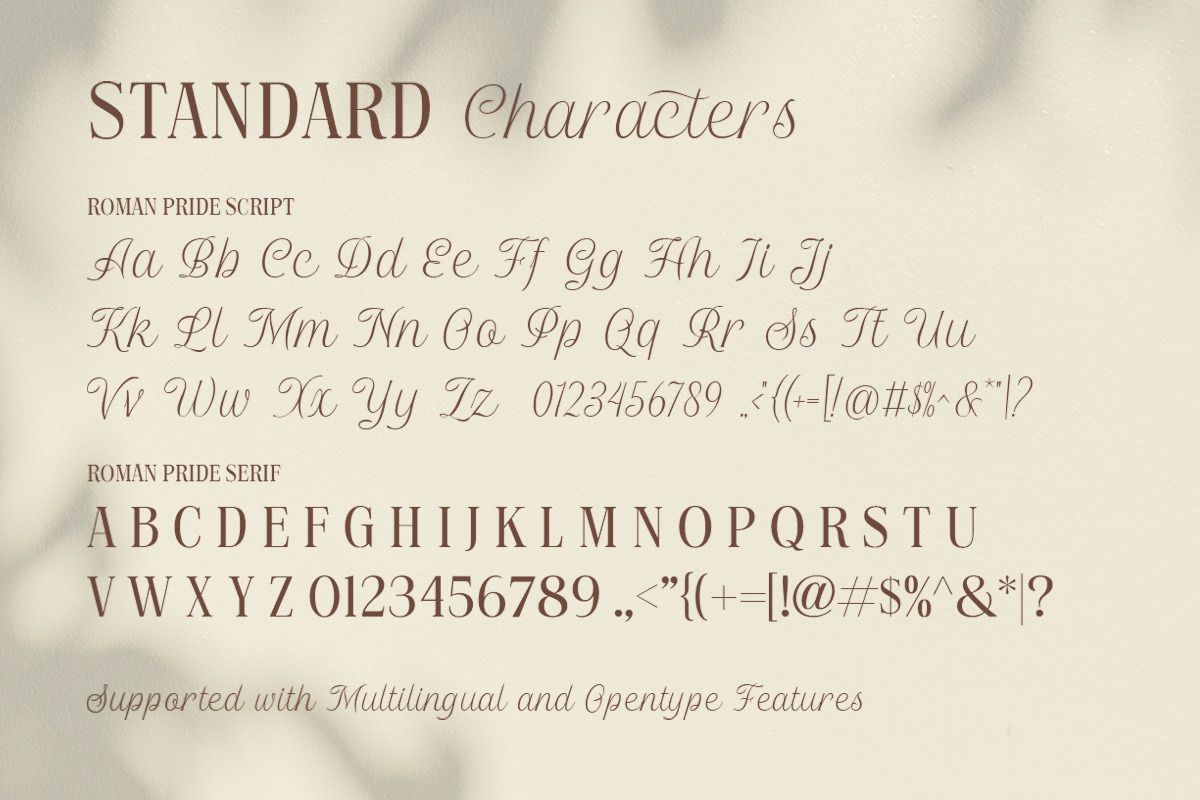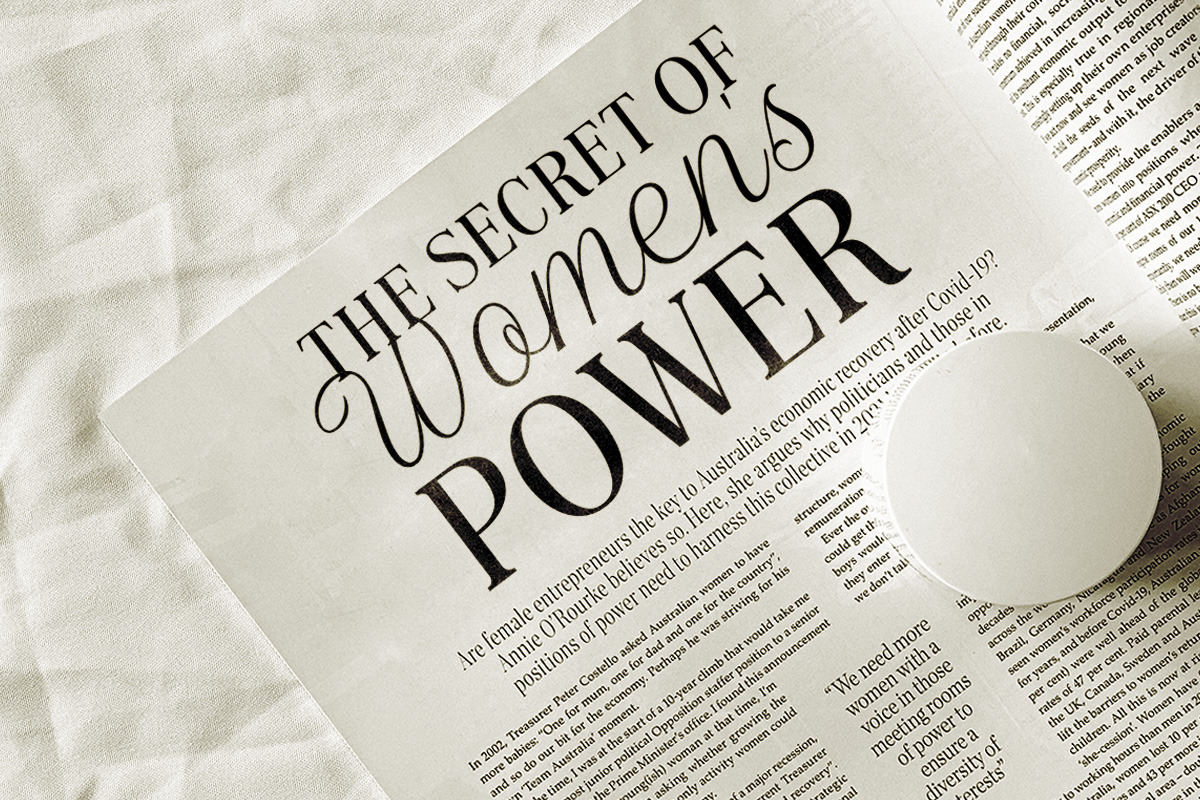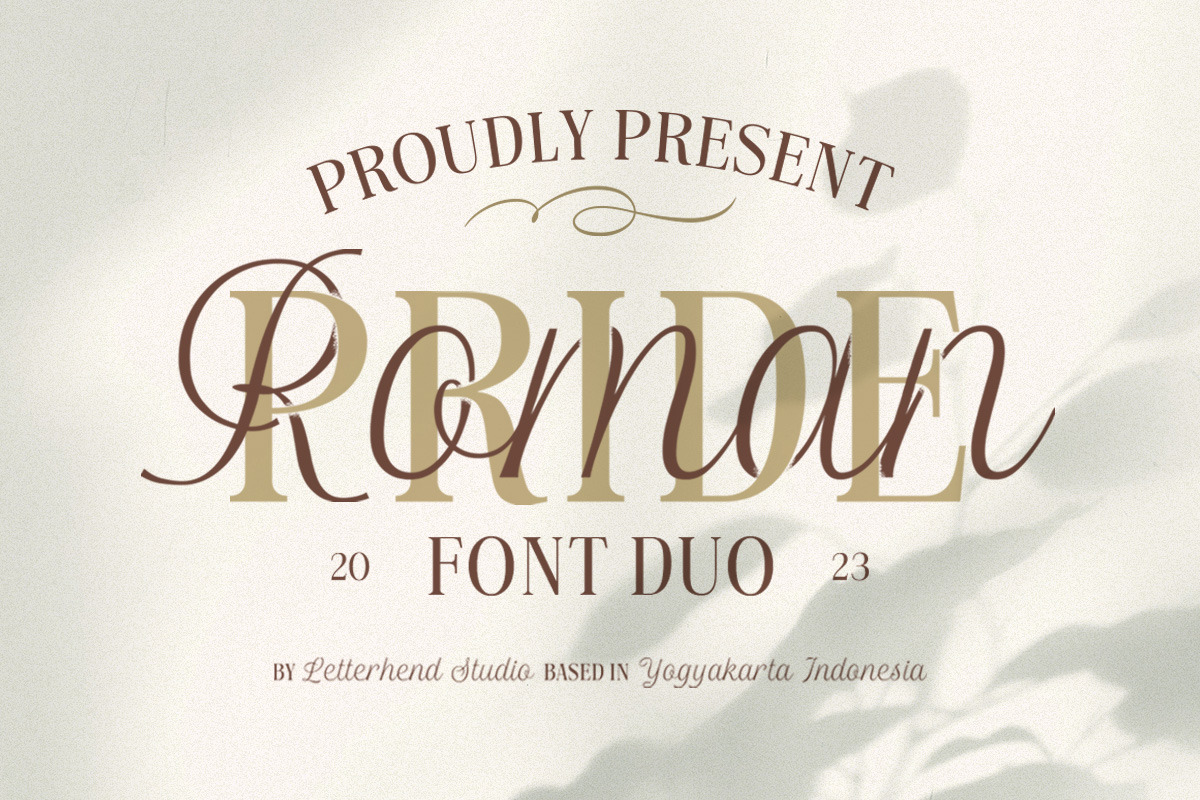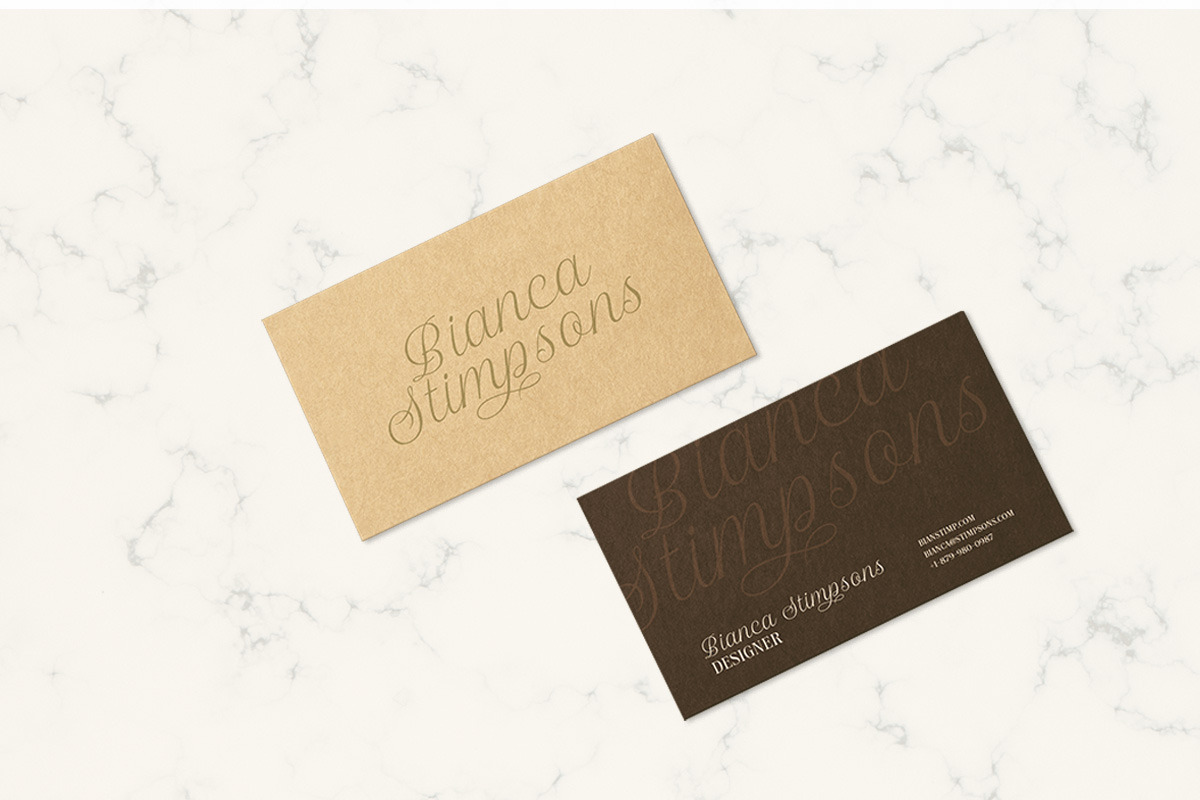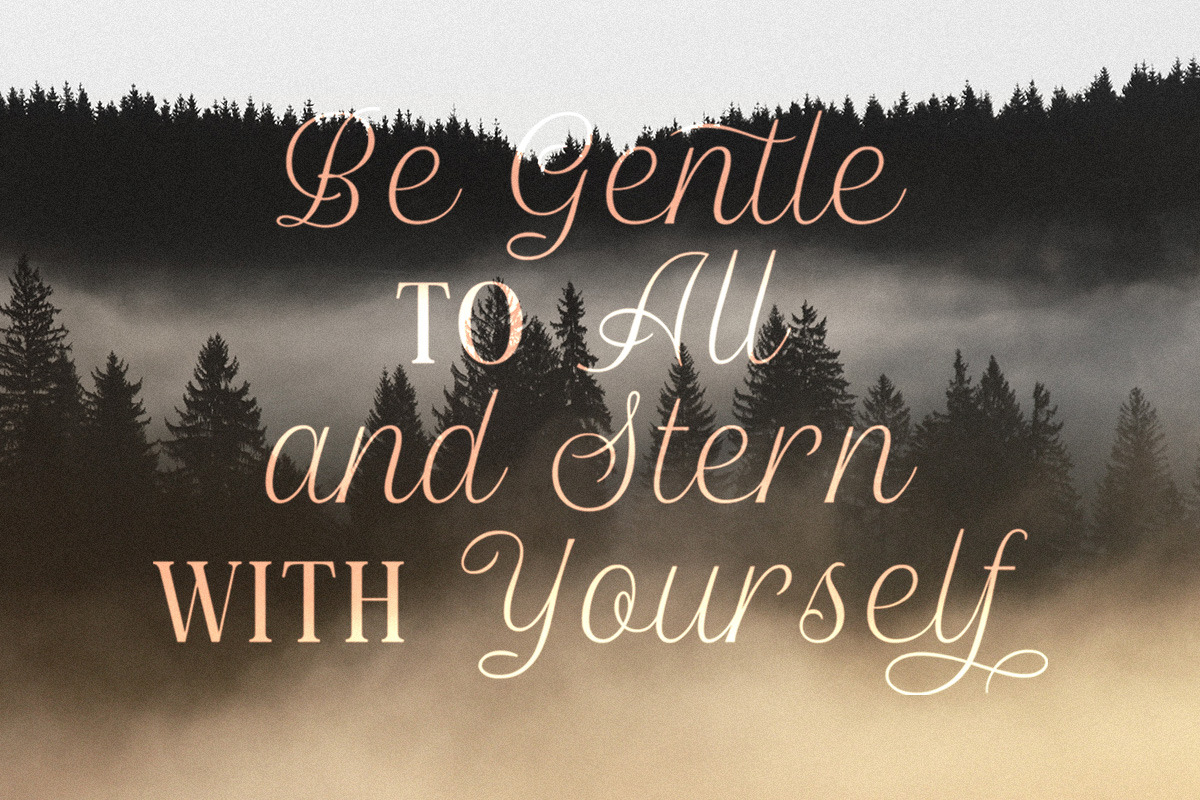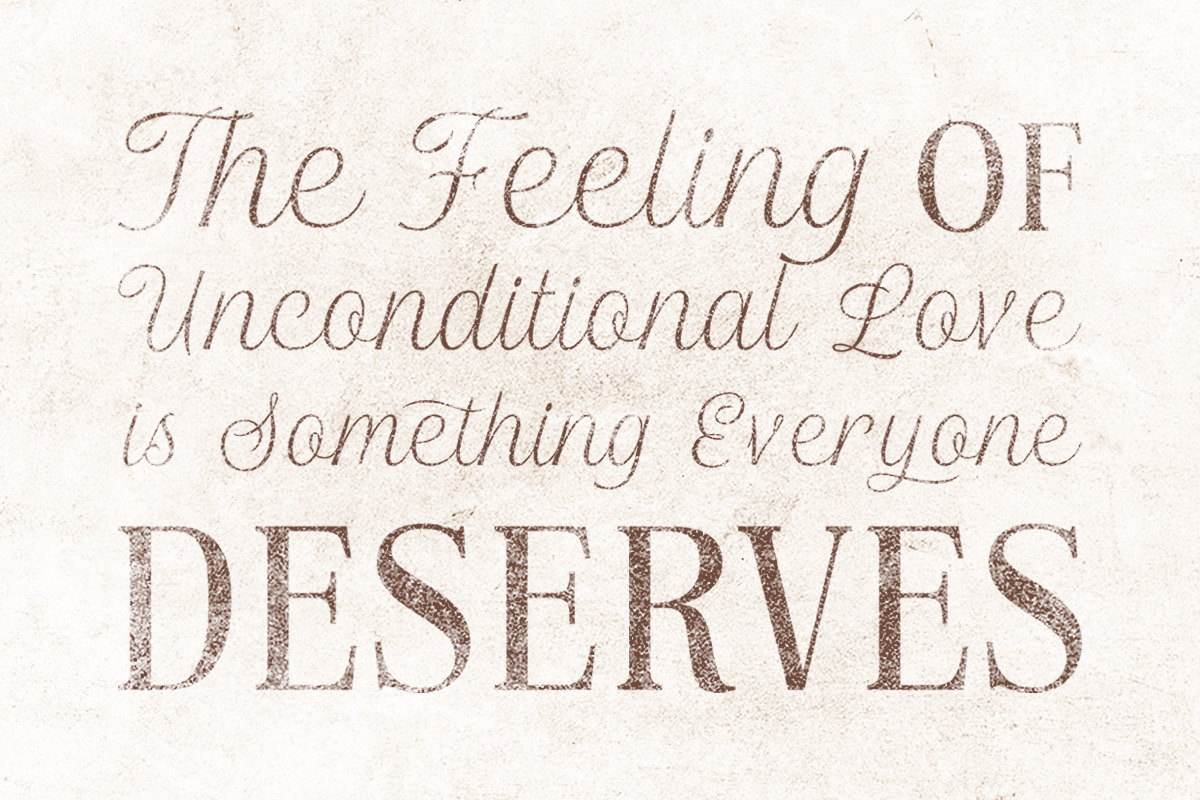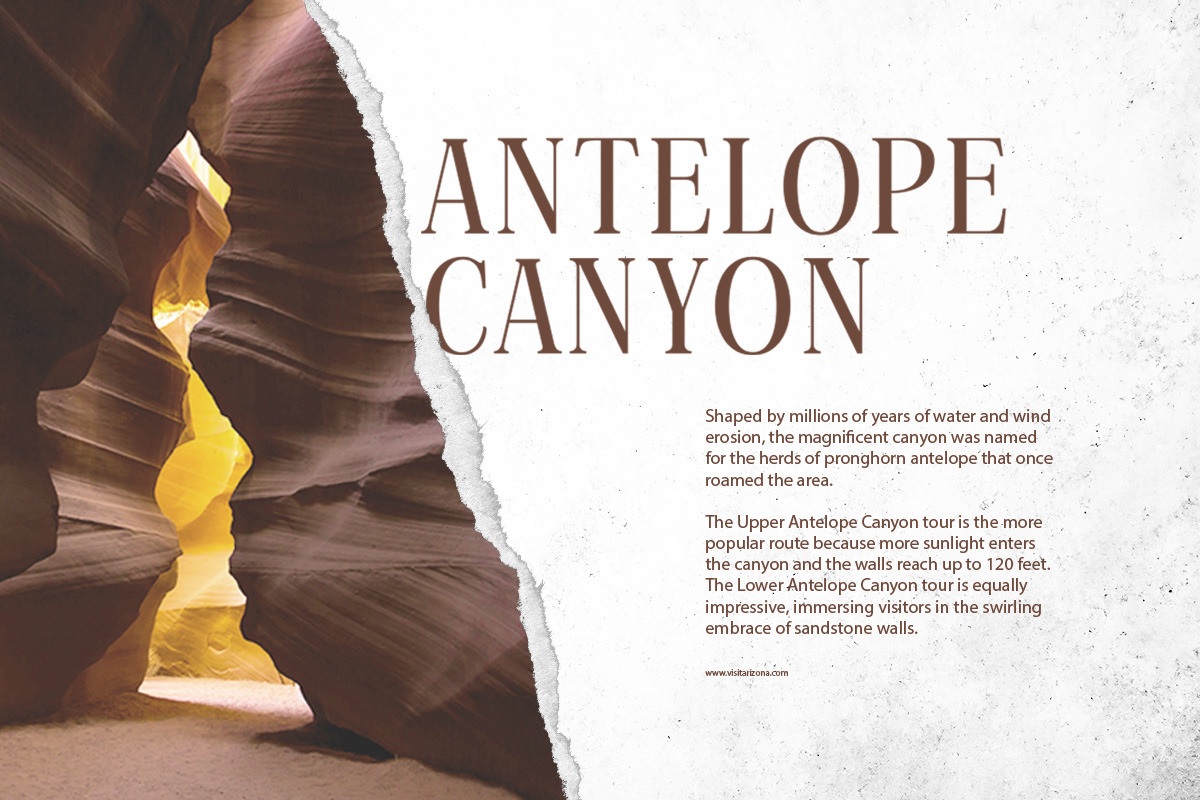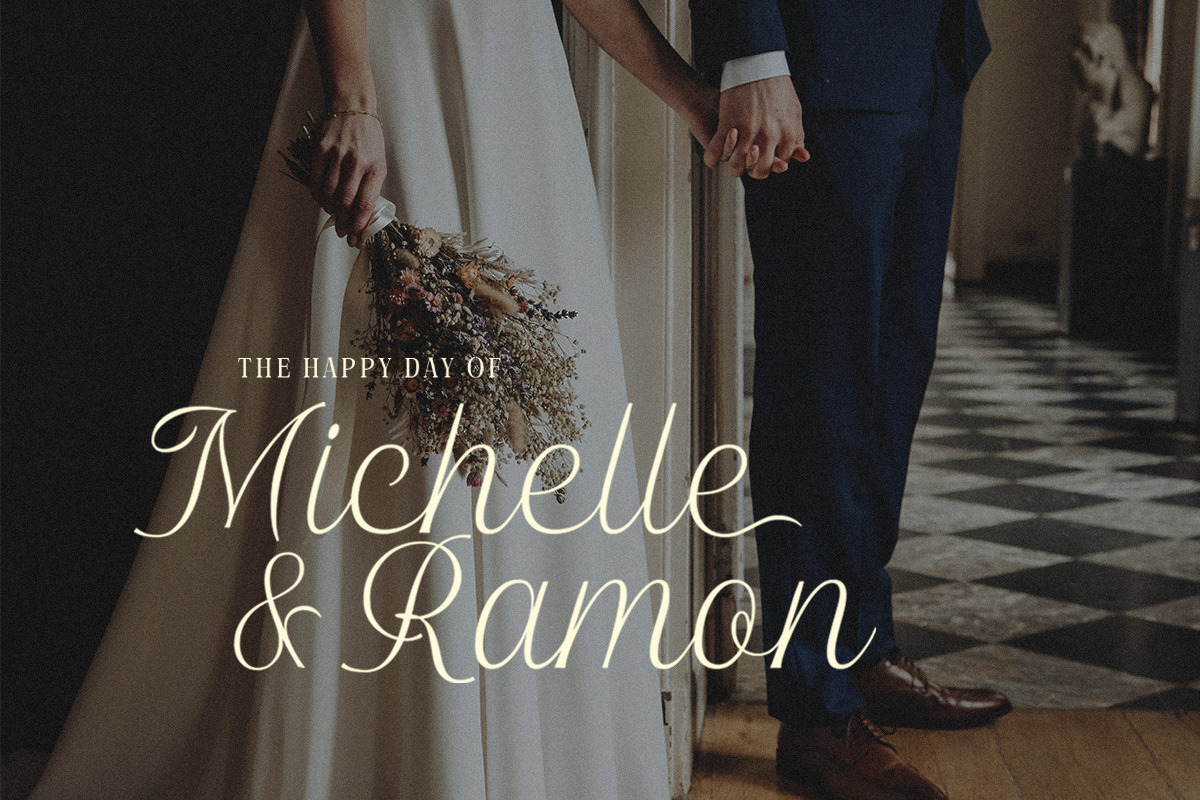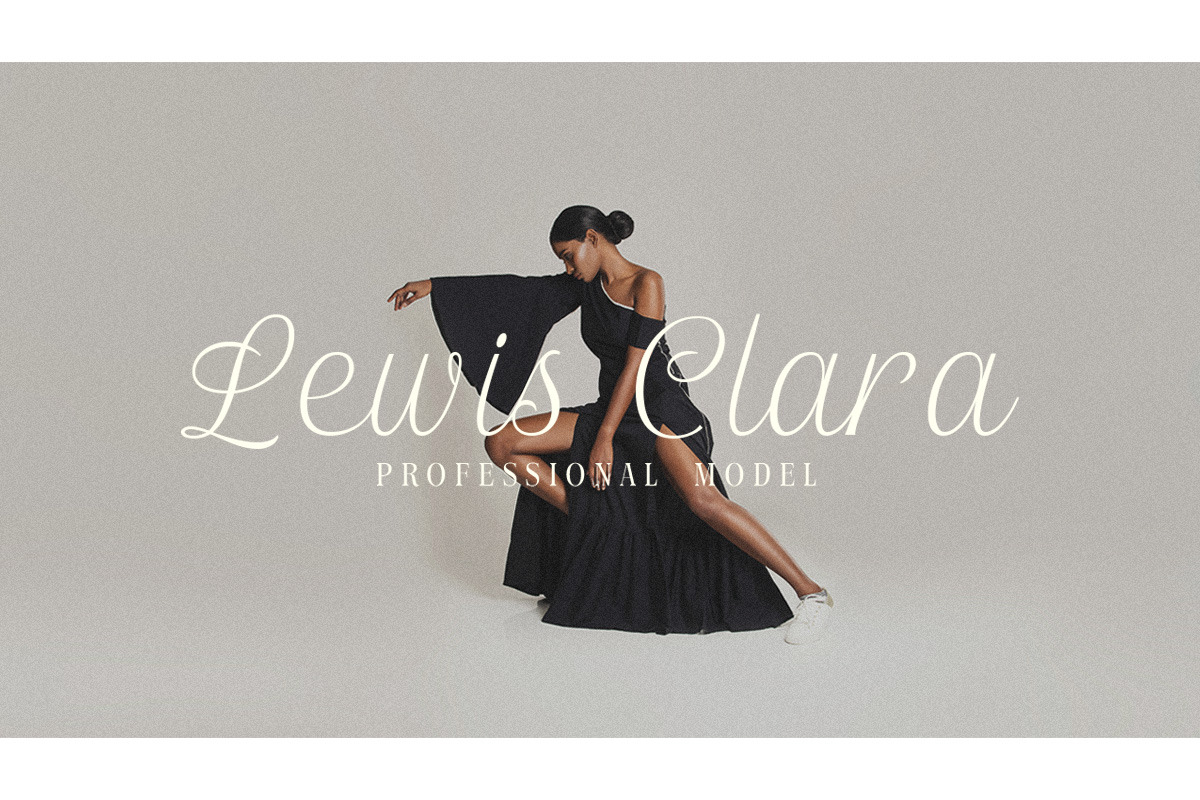
Roman Pride - Font Duo
Introducing Roman Pride, a fresh and stylish font duo that features an elegant serif font and a charming script font. The combination of the two fonts creates a perfect harmony that is both classic and modern.